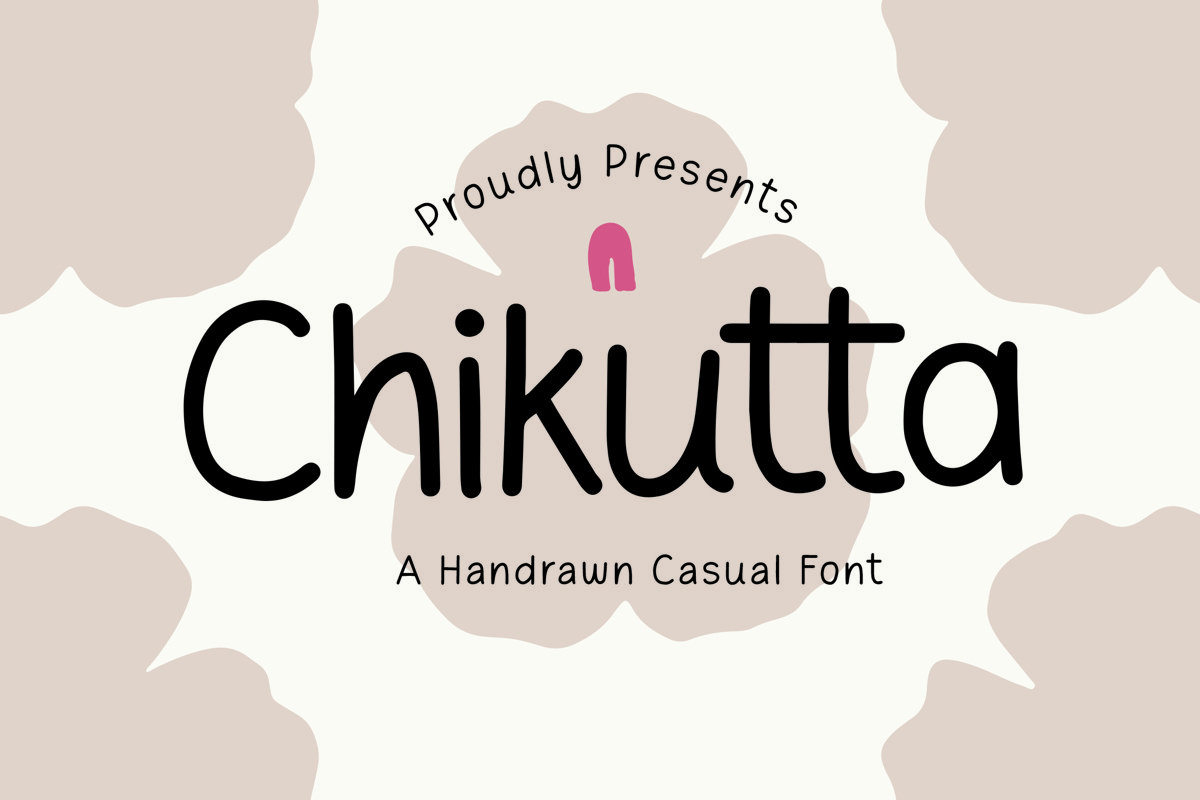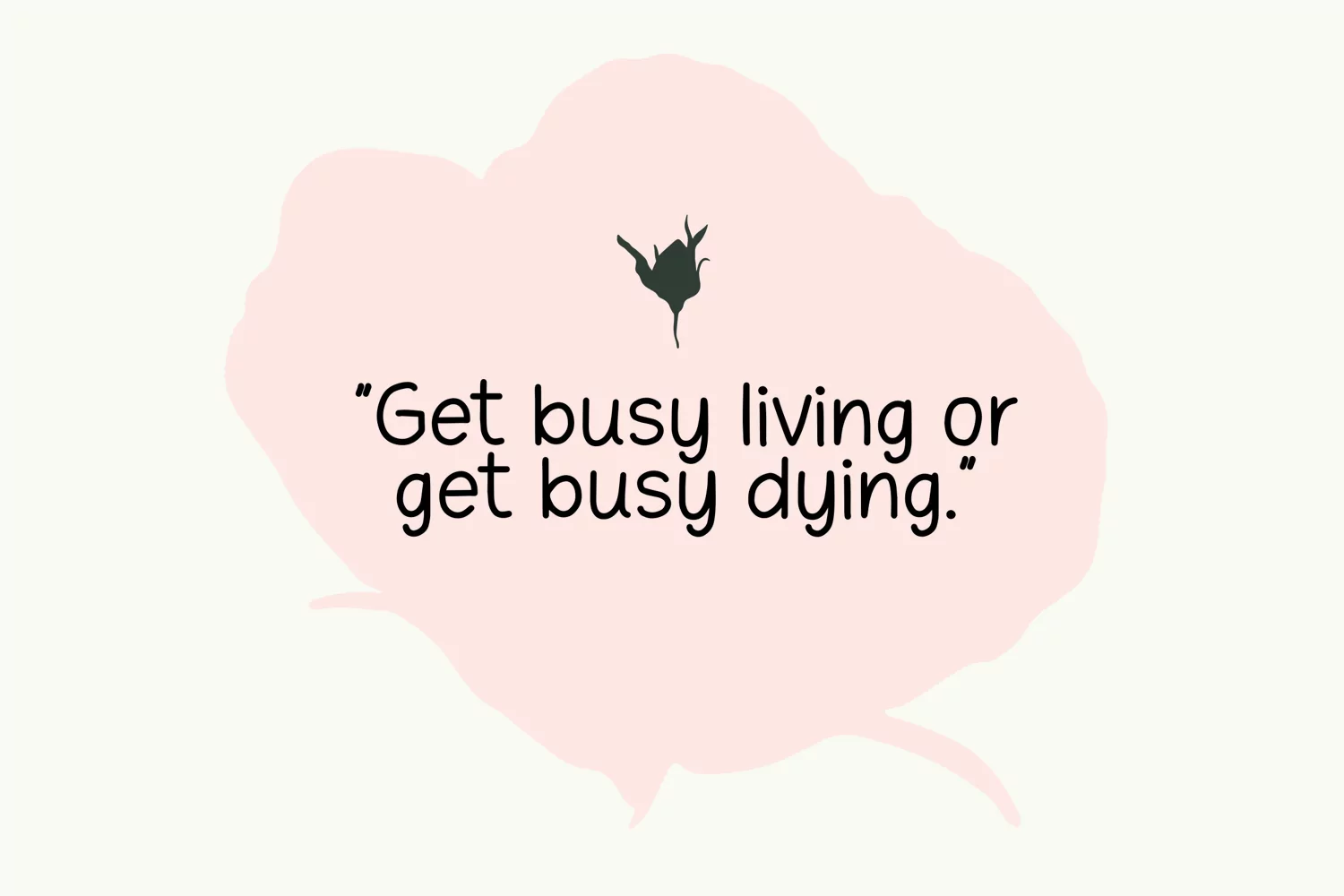
Chikutta - Handrawn Casual Font that contain lowercase, uppercase, symbol, and also support multi language. There’s a lot ligatures in this font. This Font also comes with ligatures, alternates and many more. this font suitable for fashion, branding, catalog and other design what you want.